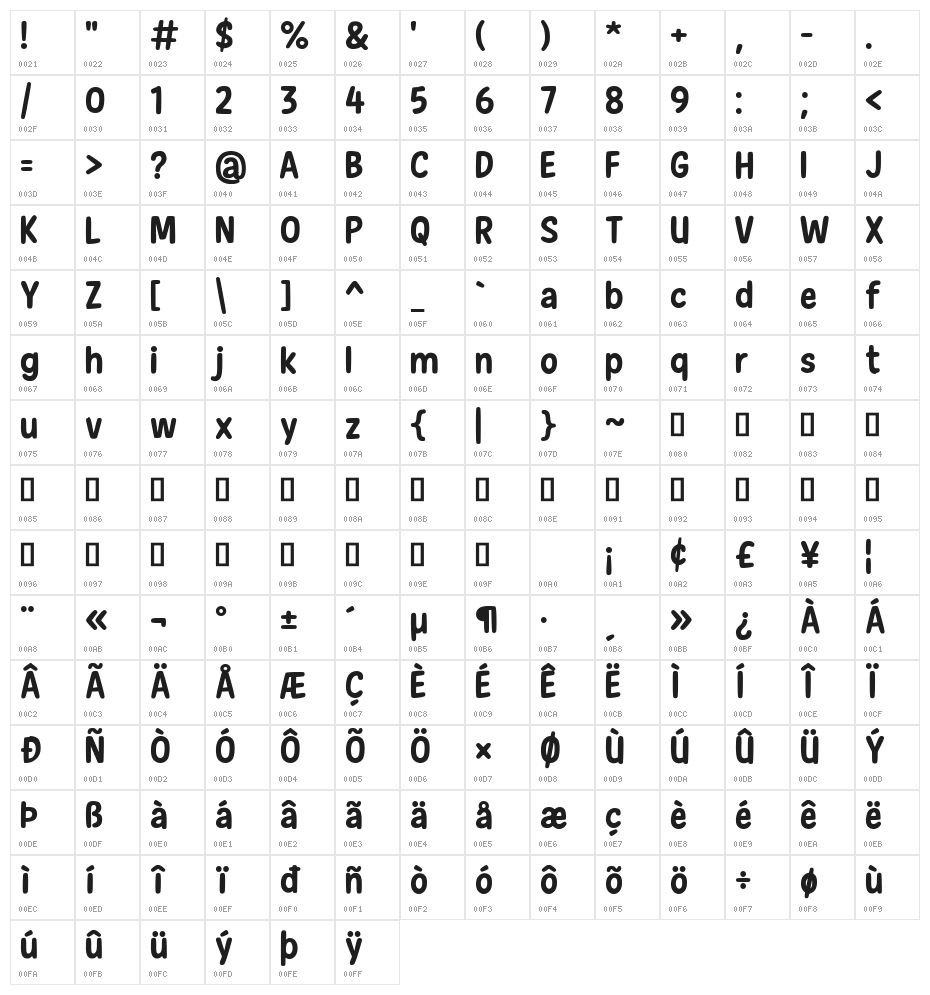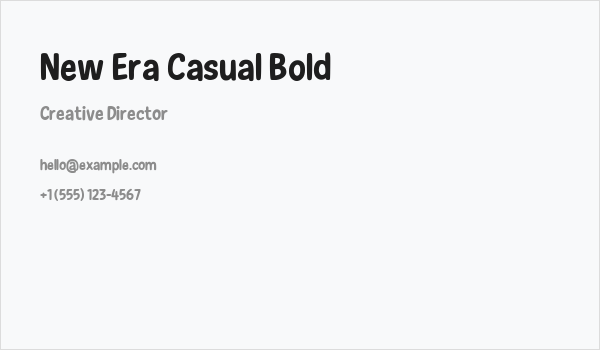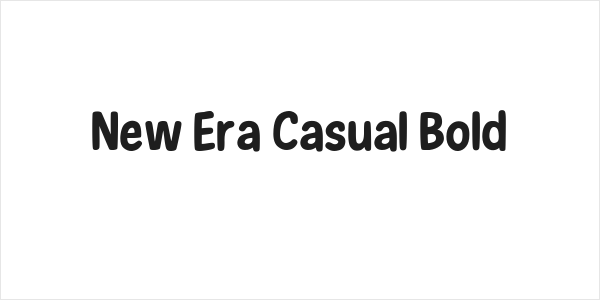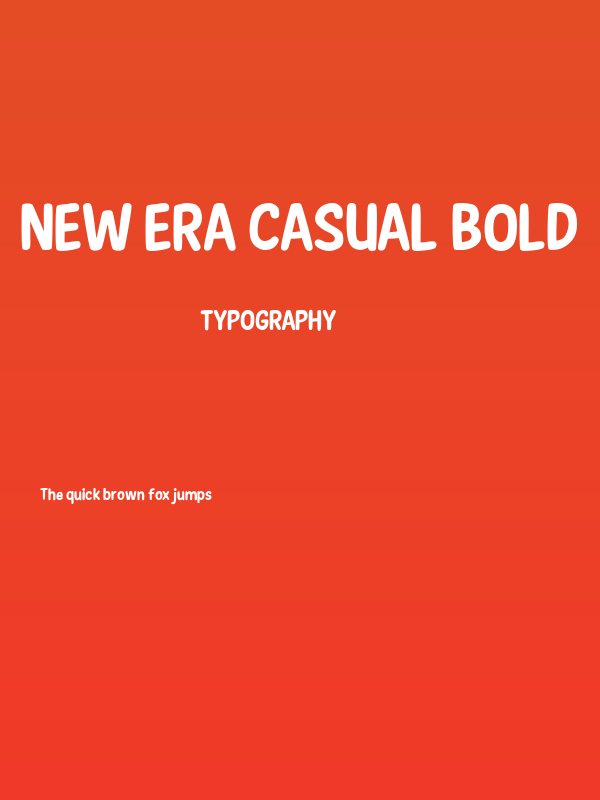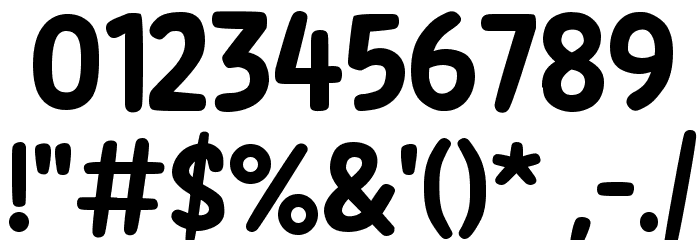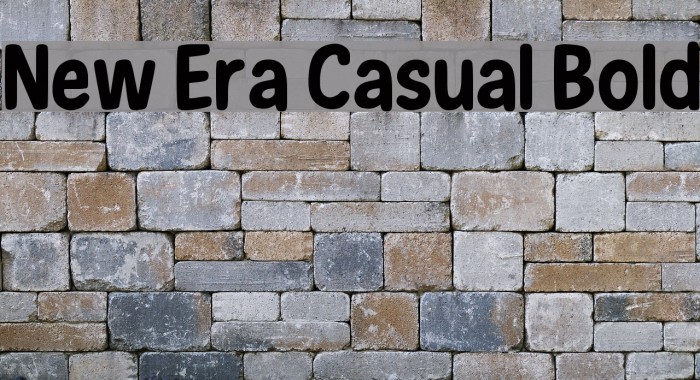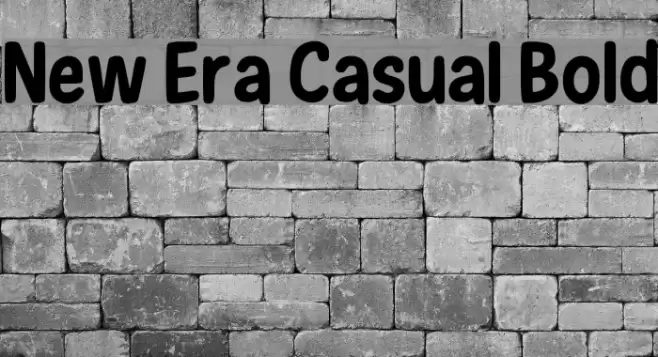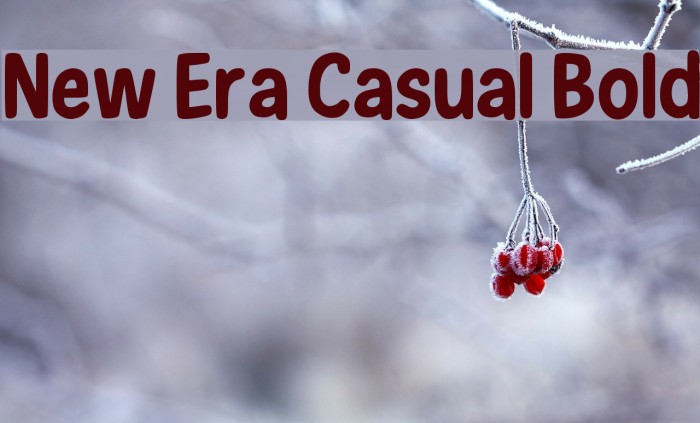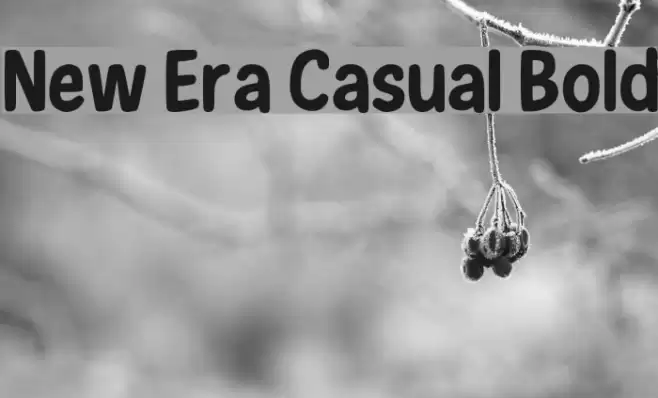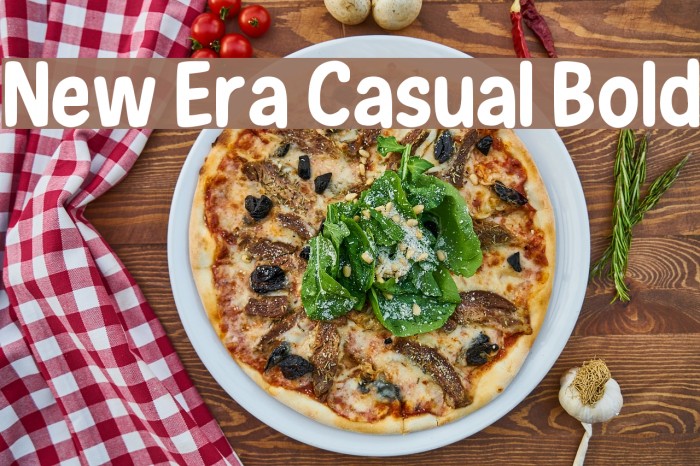
New Era Casual Bold Font
New Era Casual Bold Description
This font features a bold and rounded style that exudes a casual and friendly vibe. The characters are thick and uniform, with smooth curves and a slightly playful appearance. The uppercase and lowercase letters maintain a consistent weight, contributing to a cohesive look. The numerals and special characters are designed to match the overall aesthetic, making them easily readable and visually appealing. This font's approachable style makes it suitable for a variety of informal and creative applications.
| Overall Style | Casual |
| Use Case | Headlines, Logos, Informal Text |
| Proposed Projects | Ideal for children's books, playful branding, casual invitations, and social media graphics. |